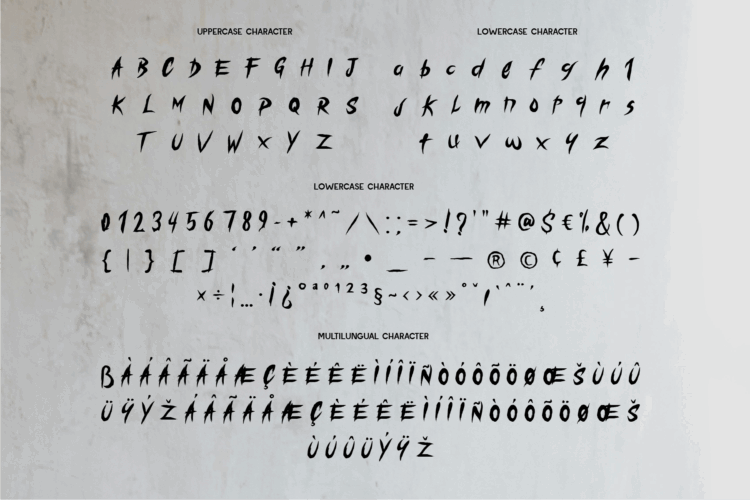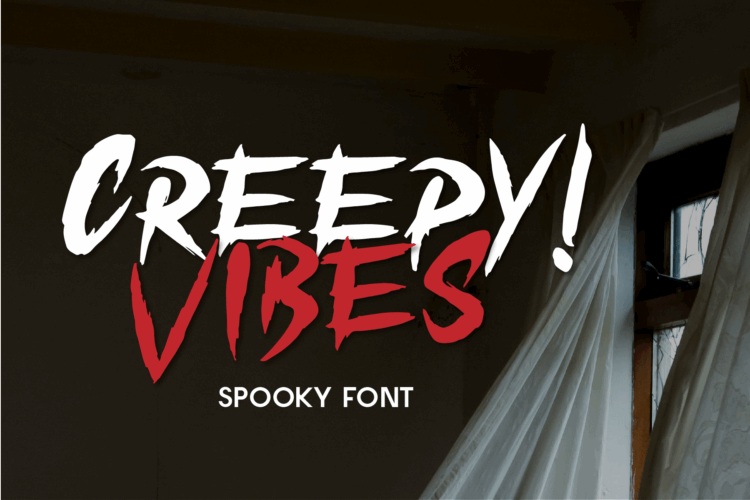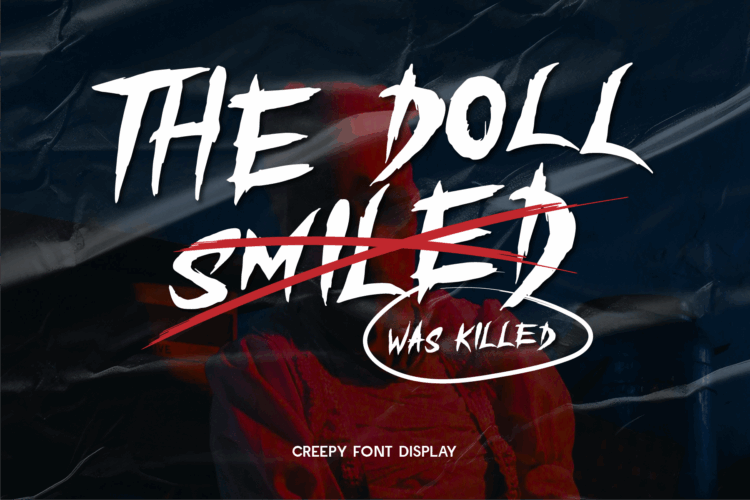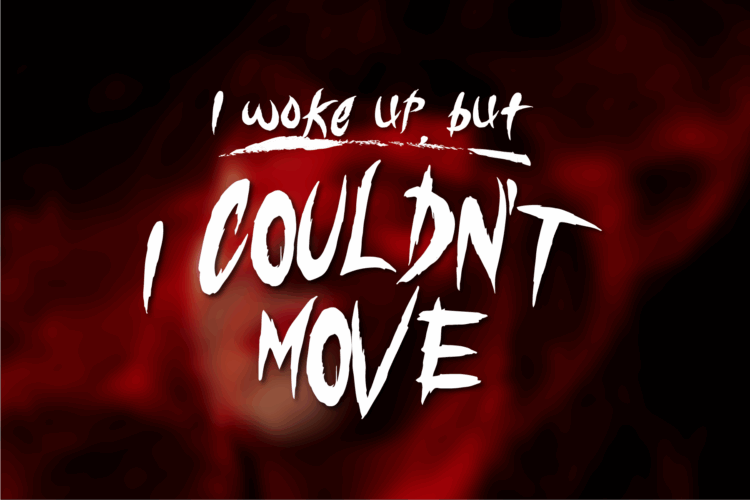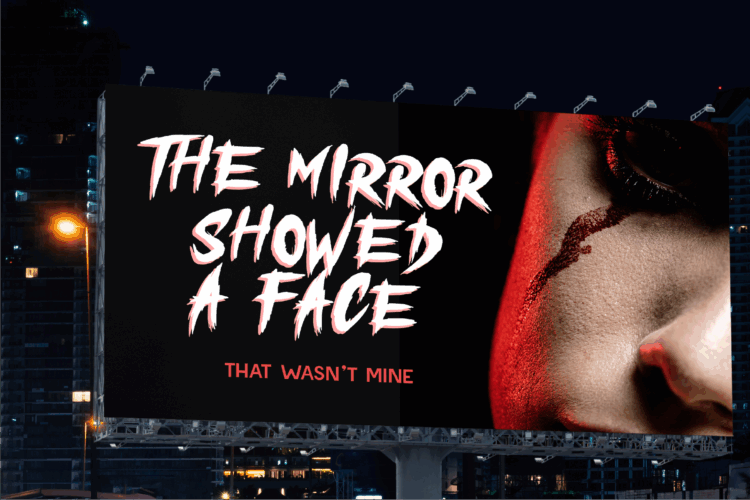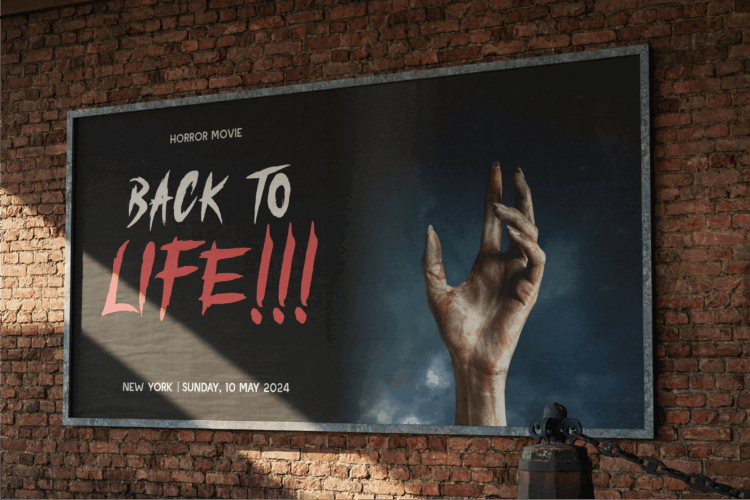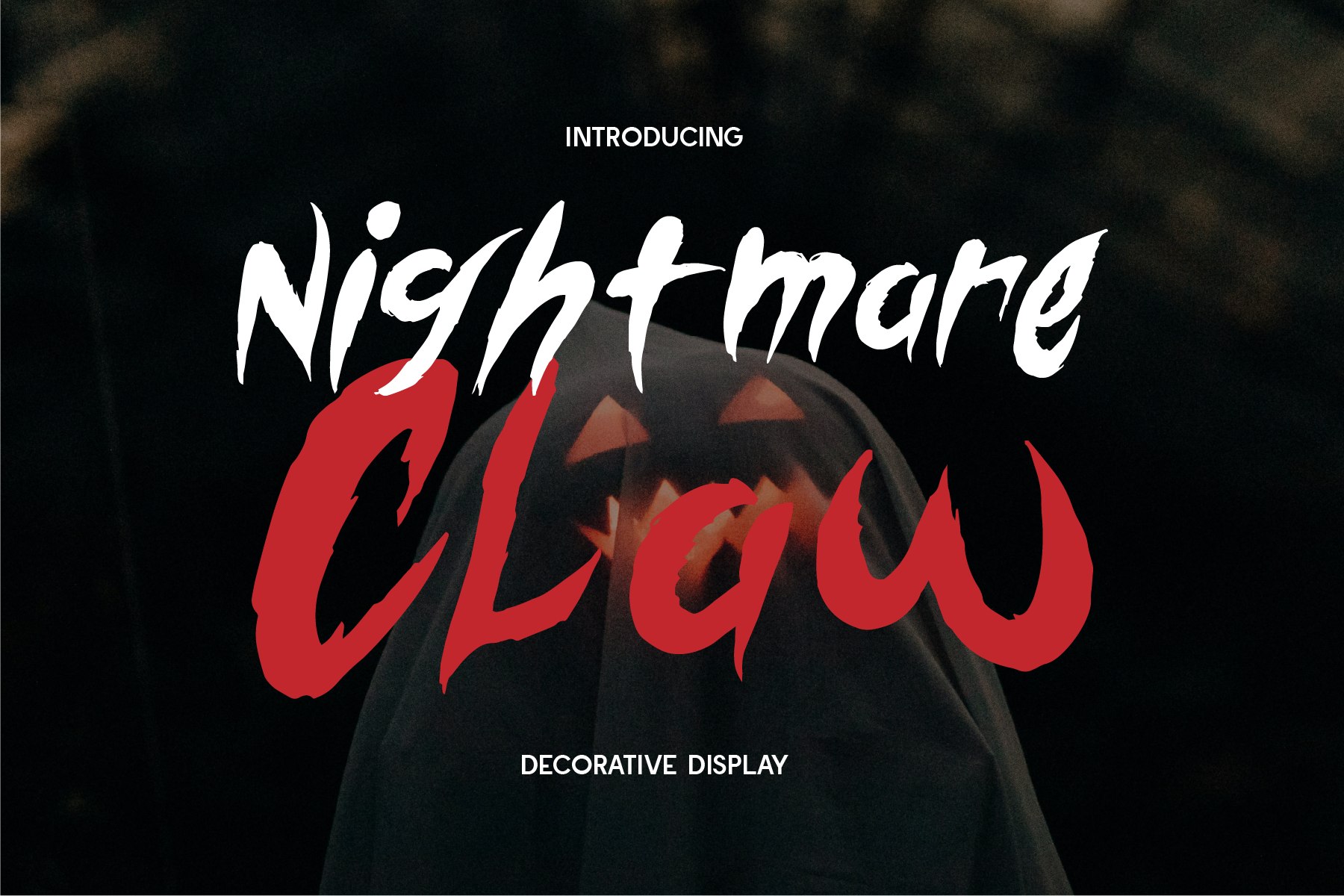
Nightmare Claw is a raw, handwritten display font with intense scratchy and grunge aesthetics. Its jagged and freeform strokes evoke a sense of chaos and fear, perfect for horror-themed projects, thriller posters, and spooky designs. The rugged texture of the letters mimics claw marks, giving your visuals an eerie, unsettling tone. This font brings an ominous, wild energy that will grip your audience’s attention, making it ideal for terrifying atmospheres and bold, haunting statements.
- Thin, Regular, Medium, Semi Bold, Bold Weight Styles and Italic Style on Each Weight
- Including Alternate Glyphs